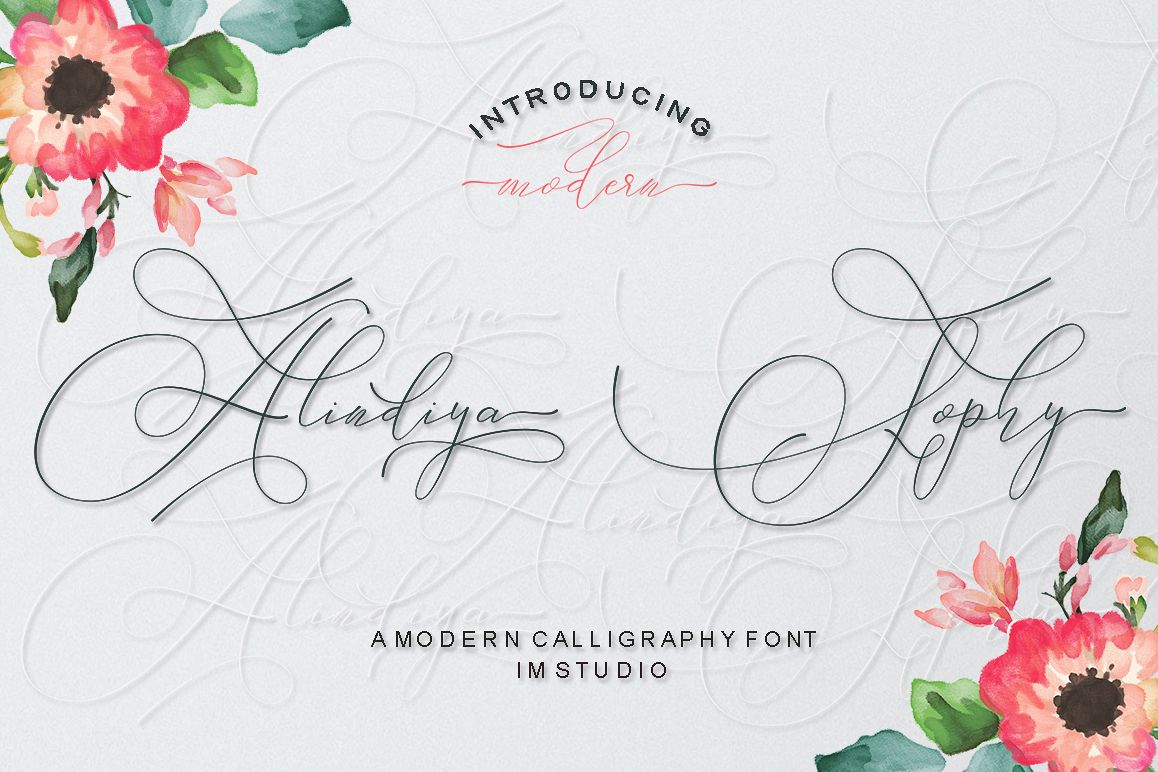
Alindiya Sophy is a modern script font, each letter is made carefully to make your text look beautiful. With a modern script style, this font will be suitable for a variety of different projects: quotes, blog headings, posters, weddings, branding, logos, fashion, clothing, letters, invitations, stationery, etc.